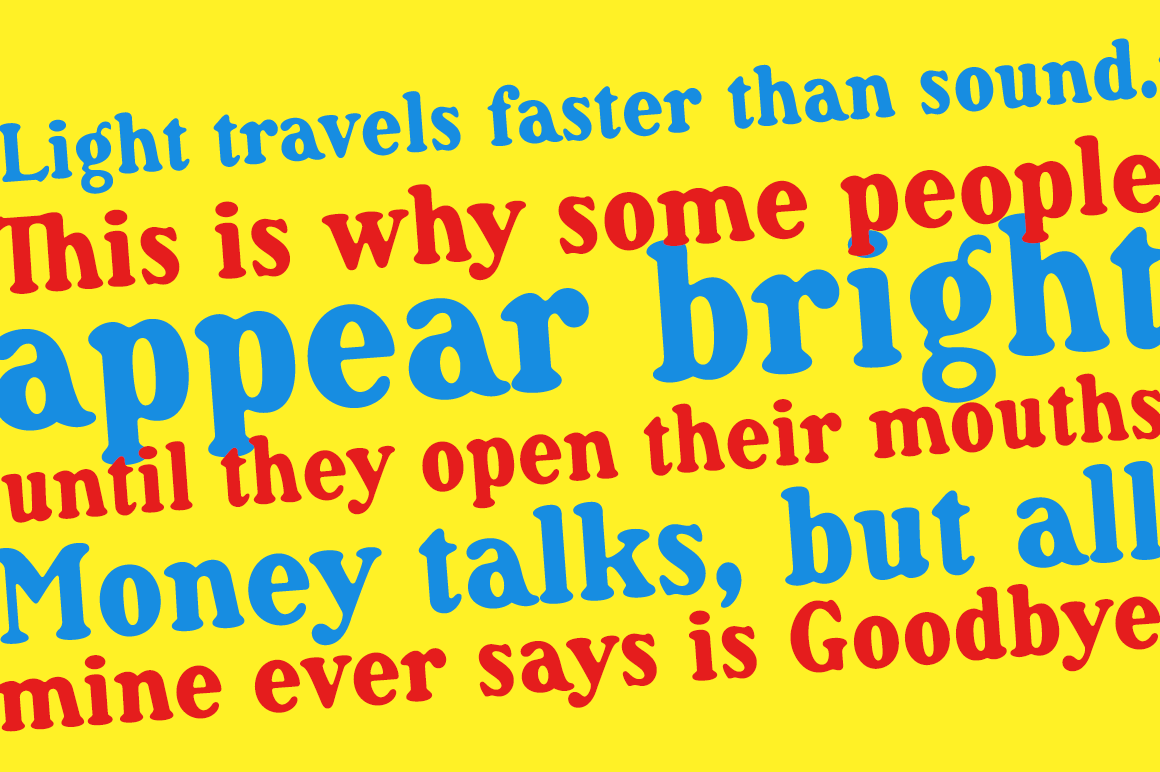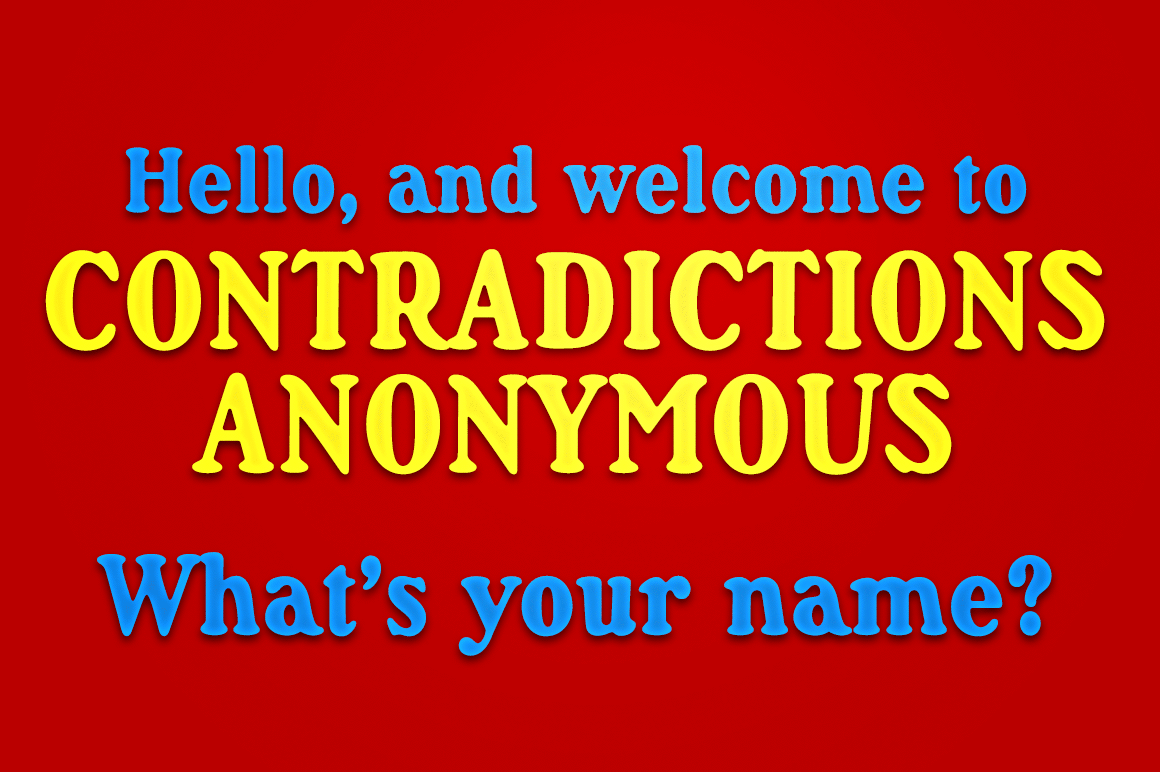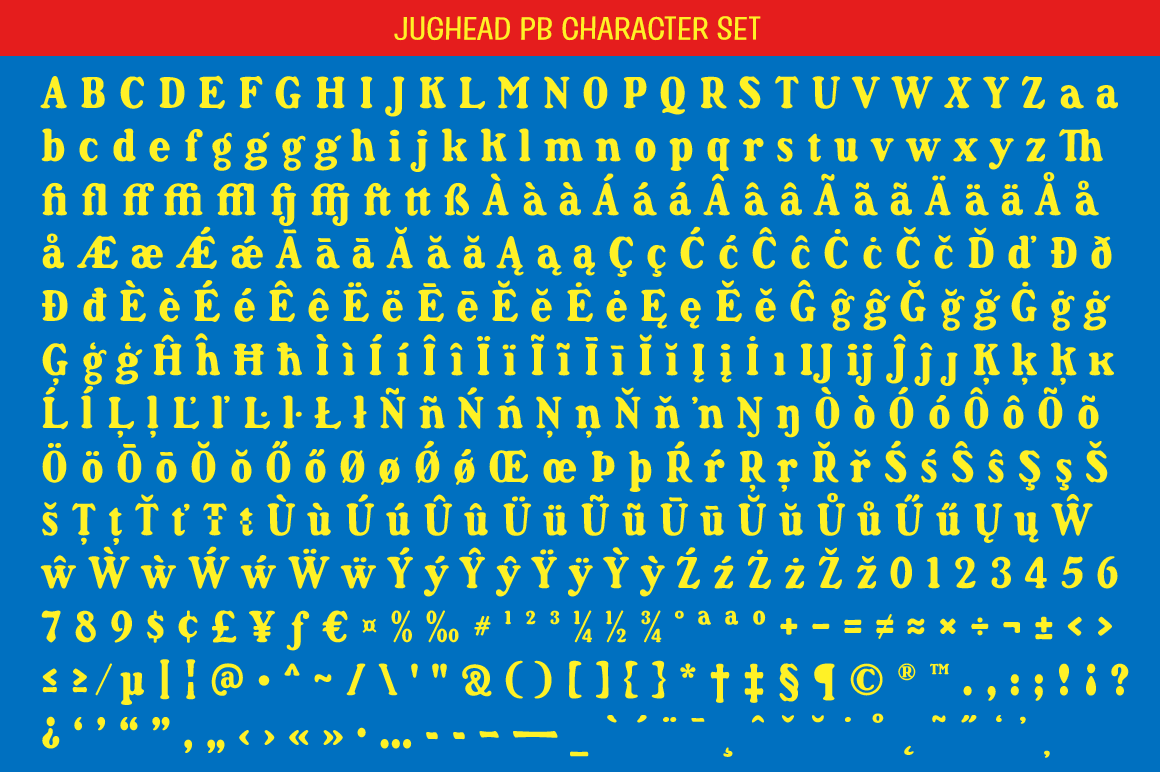
About Jughead PB
Jughead PB is a classic vintage typestyle reminiscent of Archie Comics, and other retro comics and ads. Jughead PB began as a digitization of a film typeface known as Post Condensed by LetterGraphics, perfect for typesetting early children books, candy…